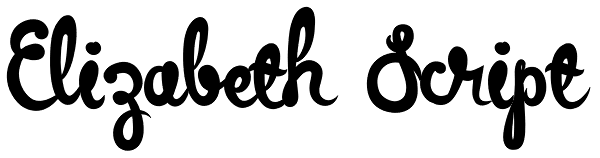
Elizabeth Script
Elizabeth a script that carries the imperfections of a hand written brush script. It includes regular and discretionary ligatures, as well as stylistic alternatives and swashes. If you are working in a program that supports Open Type, I would...
Elizabeth Script